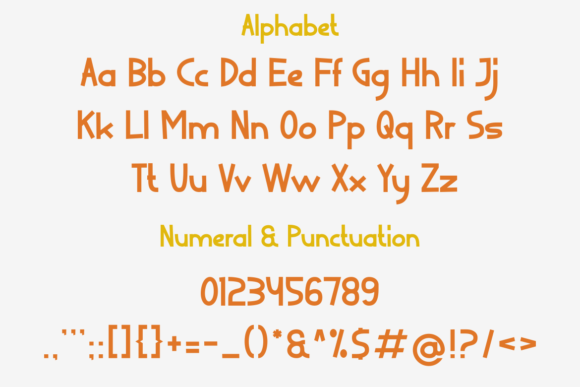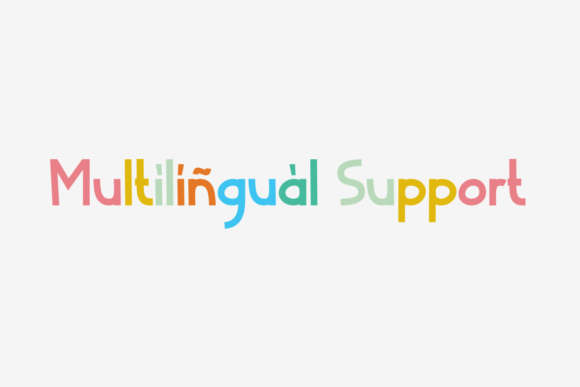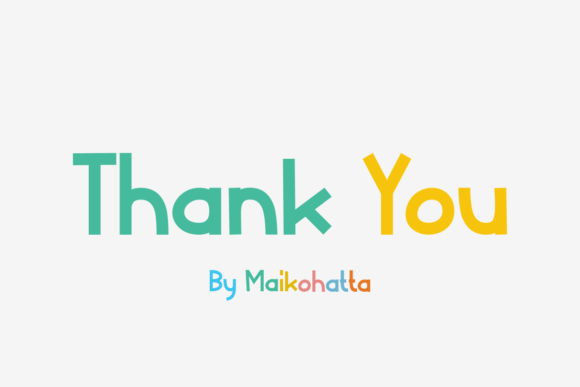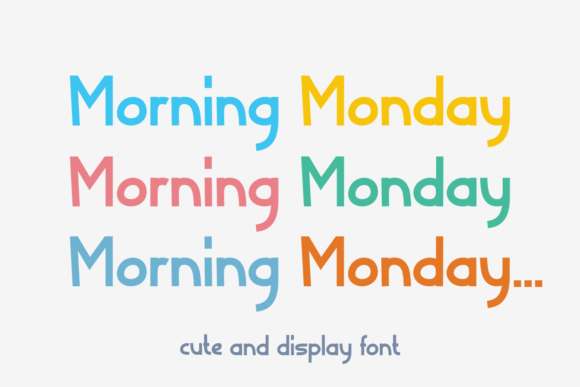
Introduction to Ninofury Font Font
Fonts play a crucial role in design, and the Ninofury Font font is a typeface that brings both character and versatility to any project. Whether you’re working on a branding project, a website, or a print design, the Ninofury Font font offers a unique style that can elevate your work.
Introducing our new product **Ninofury** – Playful Display Font **Ninofury** is suitable for greeting cards, invitations, posters, baby clothing, books cover, quotes, logos, presentations, headline, etc.
Outstanding in a wide range of contexts .
Key Features of Ninofury Font Font
Why Choose Ninofury Font Font?
The Ninofury Font font is more than just a typeface – it’s a design tool that helps you communicate your message with style and clarity. Its unique character set and versatile design make it suitable for a wide range of applications, from elegant invitations to bold headlines.
With its carefully crafted letterforms and balanced proportions, the Ninofury Font font ensures readability and visual appeal across all mediums.
What makes Ninofury Font font special?
The Ninofury Font font stands out with its unique design, exceptional readability, and versatility across various design applications.